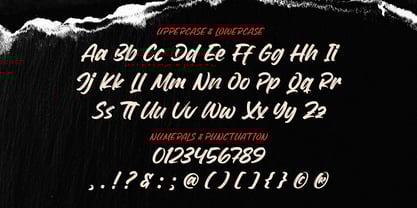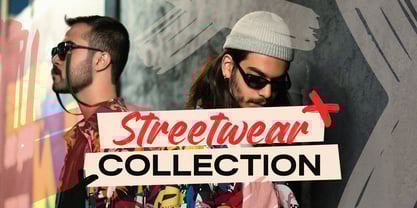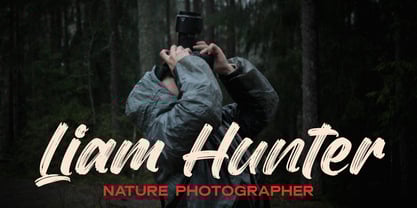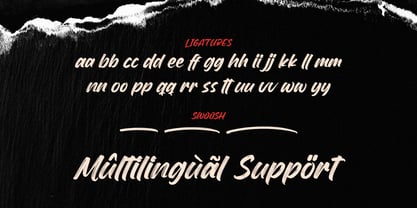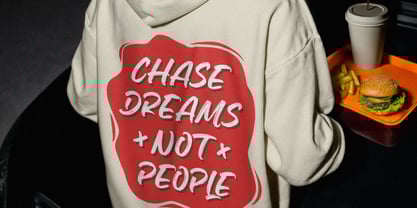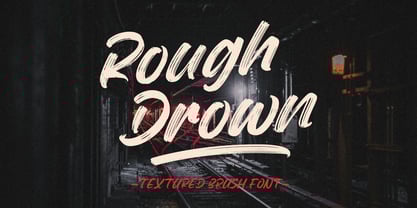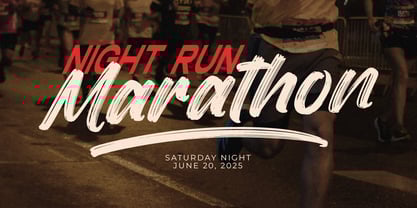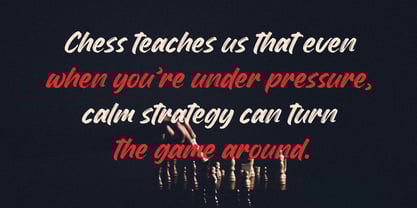
Rough Drown
by Graha Type
The Rough Drown Font Family was designed by Toni Nugraha and published by Graha Type. Rough Drown contains 1 styles.
Rough Drown is a bold and expressive textured brush font that brings a raw, handcrafted energy to your designs. With its rough edges and dynamic strokes, this typeface captures the authentic look of dry brush lettering, perfect for projects that demand a strong, artistic presence. Whether you're designing posters, album covers, apparel, or branding materials, Rough Drown adds a rebellious flair that makes your text impossible to ignore.
Designed with natural flow and bold detail, Rough Drown is ideal for both headlines and impactful short text. Its versatility shines in both digital and print media, offering a rugged yet stylish aesthetic that makes your message stand out. This unique brush font is perfect for creatives looking to infuse their work with character and edge.
Designers: Toni Nugraha
Publisher: Graha Type
Foundry: Graha Type